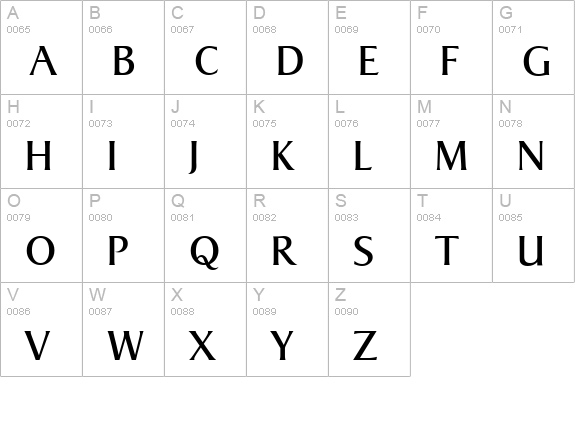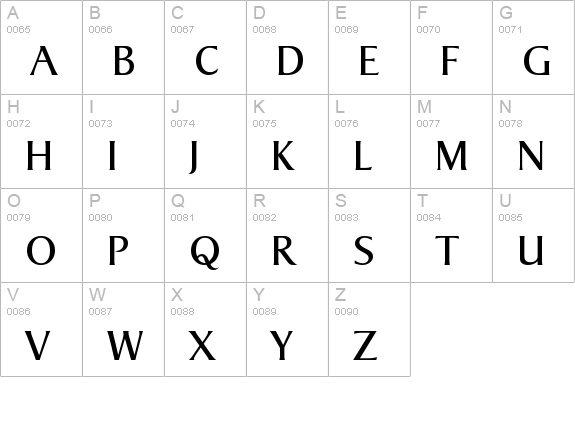
SigvarSerial-Regular is the standard, neutral variant in the SigvarSerial typeface family \xE2\x80\x94 well suited to general body text, paragraphs, and standard typographic work.
SigvarSerial-Regular is a versatile and modern font that combines classic elegance with contemporary flair. With its clean lines and balanced proportions, this typeface is perfect for a wide range of design projects, from branding to editorial design. The sleek and sophisticated look of SigvarSerial-Regular makes it ideal for creating stylish logos, headlines, and other graphic elements that demand attention. What sets SigvarSerial-Regular apart is not only its aesthetic appeal but also its accessibility. This font is available for free download at FontsMarket.com, making it easy for designers and creatives to access and use in their projects. Whether you're working on a professional presentation, a creative campaign, or a personal project, SigvarSerial-Regular is a reliable choice that will elevate your design work to the next level. Download this font today and unleash your creativity with its timeless beauty and modern charm.